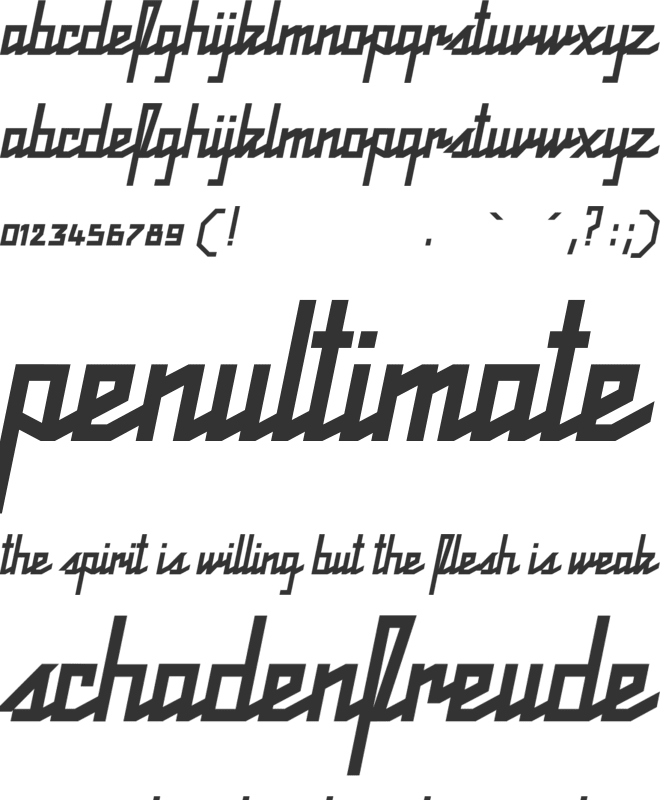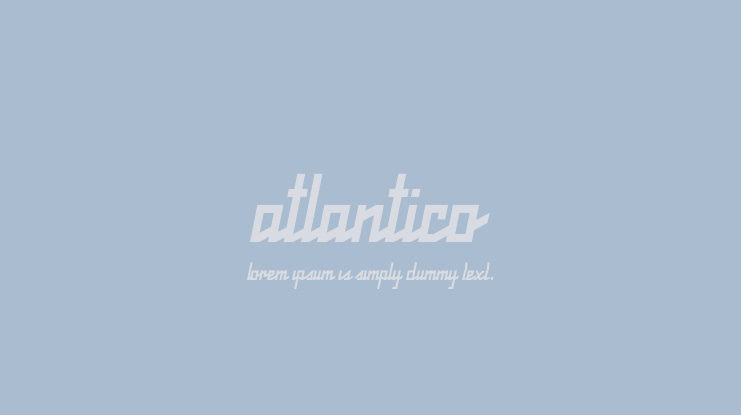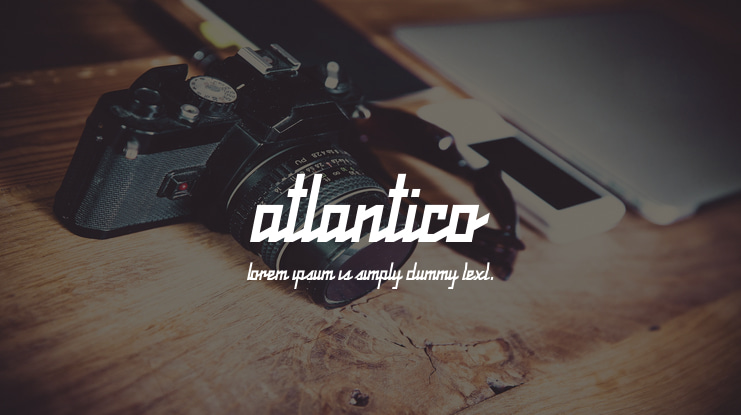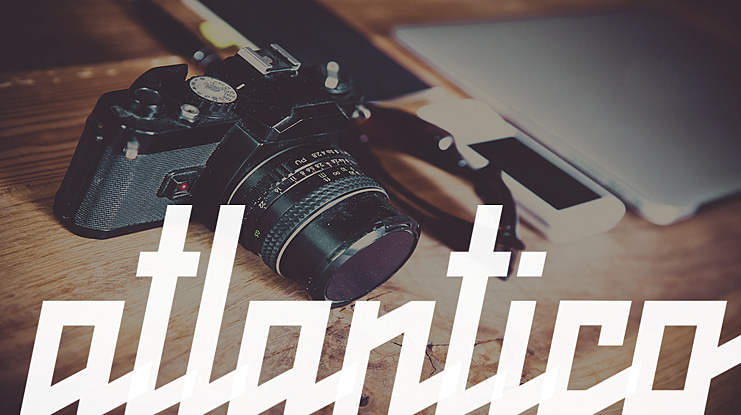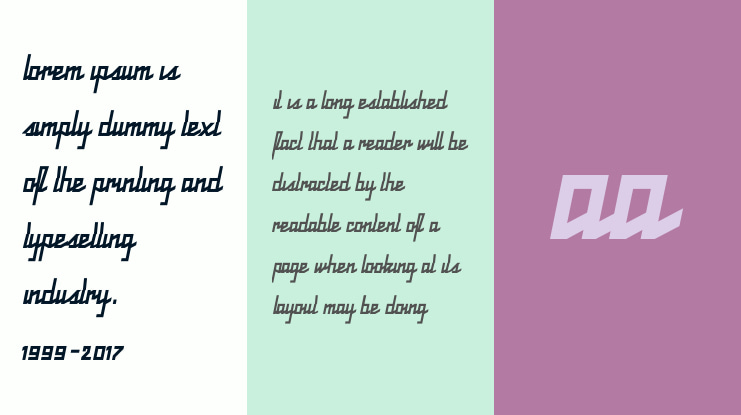
A straight version of the Pacifico.
Original Version by Vernon Adams (Pacifico font) Modified Version by Julien Canals
Atlantico version by Julien Canals in the context of the zigzaganimal.be courses, erg school. Brussel 2014